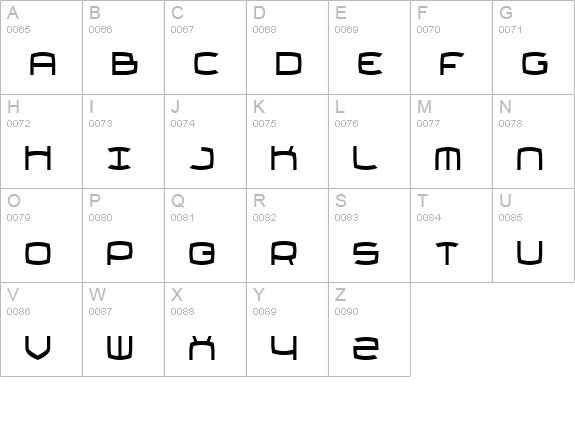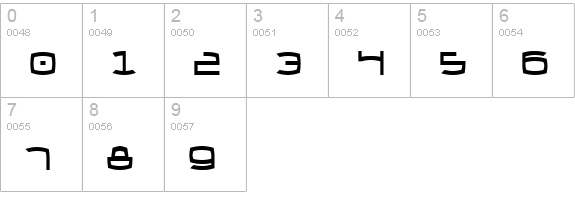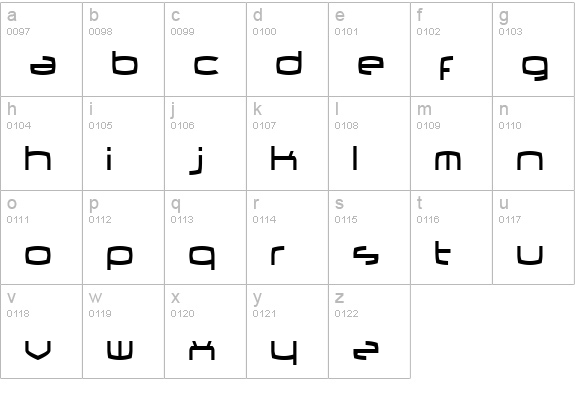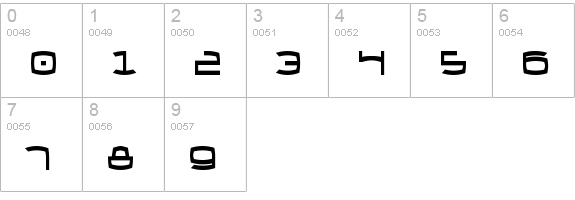
Thundergod II Condensed is a distinctive, condensed-width variant in the Thundergod typeface family \xE2\x80\x94 well suited to design and typography projects.
Thundergod II Condensed font is a powerful and striking typeface that exudes strength and authority. With its bold and condensed letterforms, this font is perfect for making a bold statement in your designs. The Thundergod II Condensed font is versatile and can be used for a wide range of projects, from posters to logos to headlines. What's even better is that Thundergod II Condensed font is available for free download at FontsMarket.com. You can easily add this impressive font to your collection without any cost. Don't miss out on the opportunity to enhance your designs with the impactful Thundergod II Condensed font. Download it now and let your creativity shine!